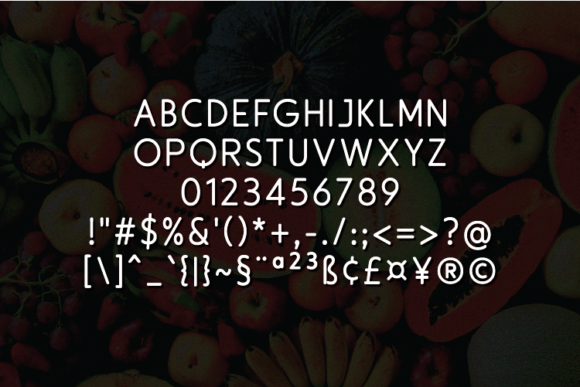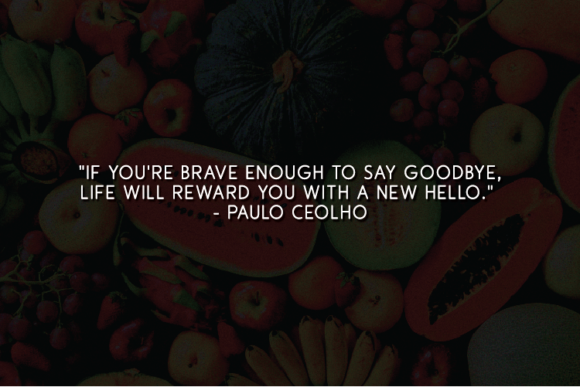
Fruitsoul Font: The Ultimate Sans Serif Font for Designers and Crafters
Are you tired of using the same old fonts for your design projects? Look no further than Fruitsoul Font, a clean and simple lettered sans serif font that’s perfect for creating beautiful headings, gorgeous invitations, stunning logos, and so much more. In this article, we’ll dive into the features and benefits of Fruitsoul Font, and explore how it can elevate your design game.
What is Fruitsoul Font?
Fruitsoul Font is a modern sans serif font that’s designed to complement every project you’re working on. Its clean and simple lettering makes it perfect for designers and crafters who want to add a touch of elegance and sophistication to their work. Whether you’re creating a logo, invitation, or social media graphic, Fruitsoul Font is the perfect choice.
Key Features of Fruitsoul Font
- Clean and Simple Design: Fruitsoul Font features a clean and simple design that’s easy to read and looks great on any device.
- Sans Serif Style: The font’s sans serif style makes it perfect for modern designs that require a clean and minimalist look.
- Lettered Perfection: Each letter is carefully crafted to ensure that the font looks perfect in any context.
- Versatile: Fruitsoul Font can be used for a wide range of projects, from headings and invitations to logos and social media graphics.
Benefits of Using Fruitsoul Font
So why should you choose Fruitsoul Font for your next project? Here are just a few benefits of using this amazing font:
- Elegance and Sophistication: Fruitsoul Font adds a touch of elegance and sophistication to any design, making it perfect for high-end brands and luxury products.
- Easy to Read: The font’s clean and simple design makes it easy to read, even at small sizes.
- Customizable: Fruitsoul Font can be easily customized to fit your brand’s style and personality.
- Time-Saving: With Fruitsoul Font, you can create professional-looking designs in no time, saving you time and effort.
- Create a Stunning Logo: Use Fruitsoul Font to create a stunning logo that perfectly represents your brand.
- Design a Beautiful Invitation: Create a gorgeous invitation for a special event or occasion using Fruitsoul Font.
- Make a Social Media Graphic: Use Fruitsoul Font to create a social media graphic that grabs attention and drives engagement.
Tips and Tricks for Getting the Most Out of Fruitsoul Font
Here are a few tips and tricks for getting the most out of Fruitsoul Font:
- Experiment with Different Sizes: Try using Fruitsoul Font in different sizes to create visual interest and hierarchy.
- Combine with Other Fonts: Combine Fruitsoul Font with other fonts to create a unique and eye-catching design.
- Use it for Headings: Use Fruitsoul Font for headings and titles to add a touch of elegance and sophistication.
In conclusion, Fruitsoul Font is a clean and simple lettered sans serif font that’s perfect for designers and crafters who want to add a touch of elegance and sophistication to their work. With its clean and simple design, sans serif style, and versatile nature, Fruitsoul Font is the perfect choice for any project. Whether you’re creating a logo, invitation, or social media graphic, Fruitsoul Font is sure to impress.